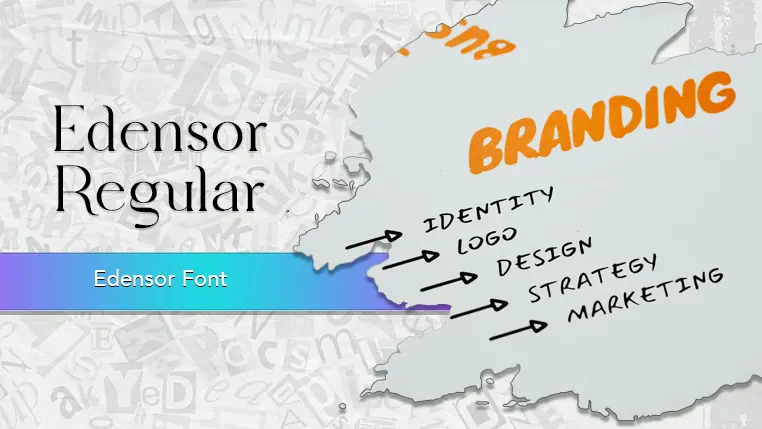
The Edensor font family may be ideal for you if you enjoy working on an artistic design project. The lively, expressive look of this typeface, which was created by FactoryType, makes it ideal for Branding and Logos and other light-hearted visual projects.
Regular are the one primary font styles of the Edensor font family. You may build dynamic, visually appealing text layouts with the distinct flair that each style offers. With crisp, readable lines and a relaxed tone.